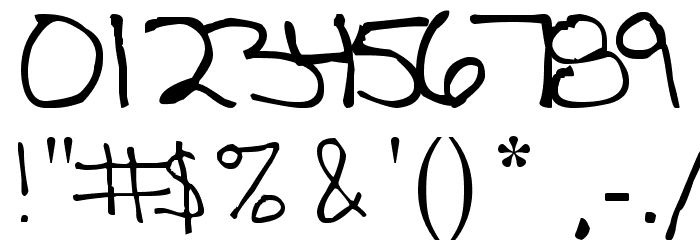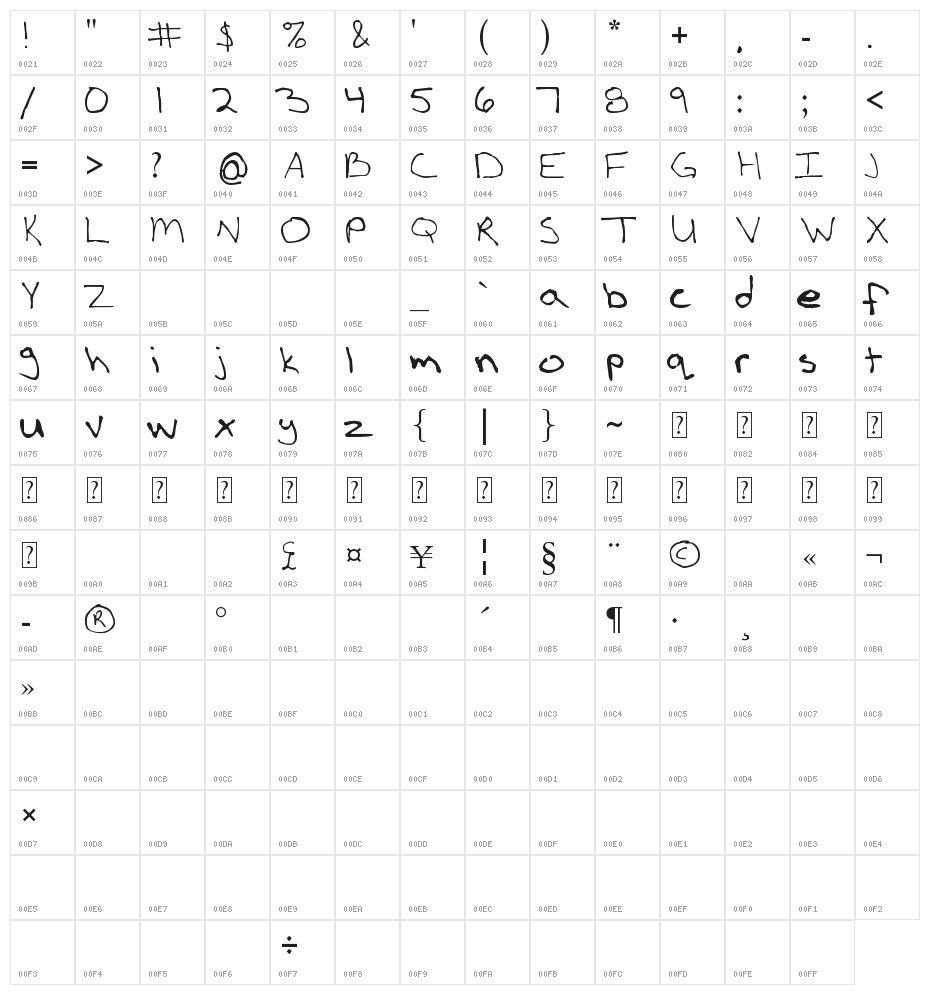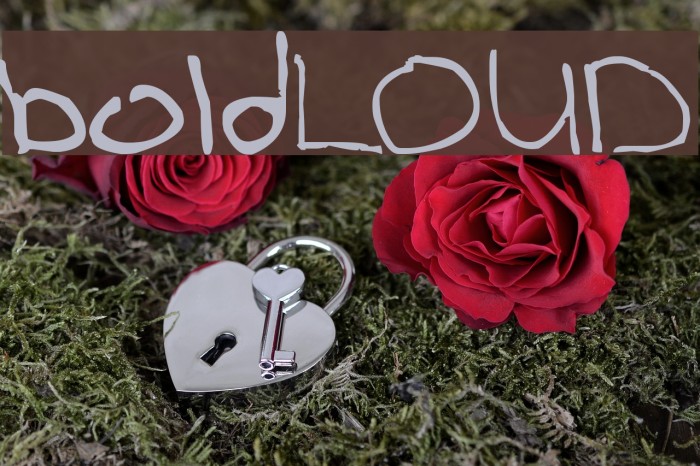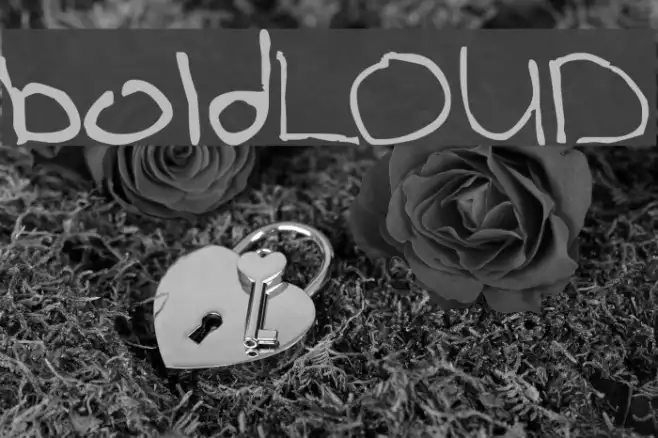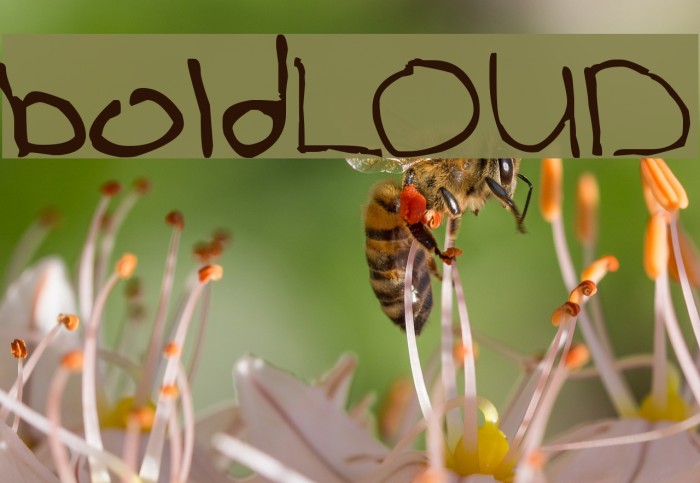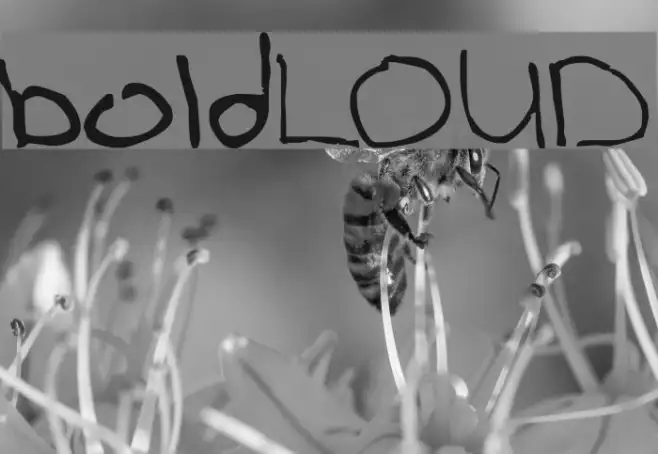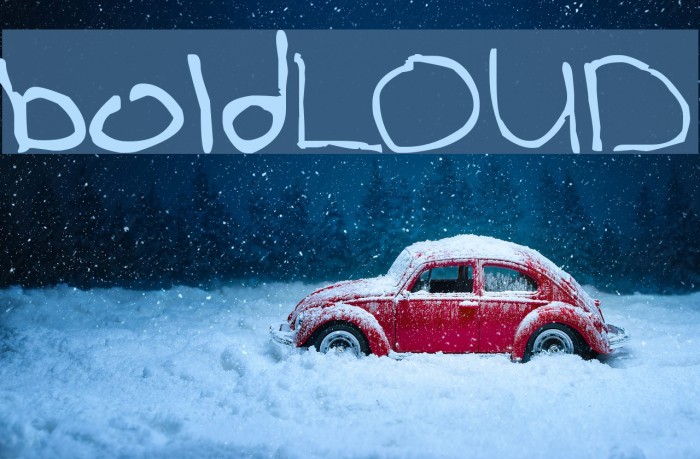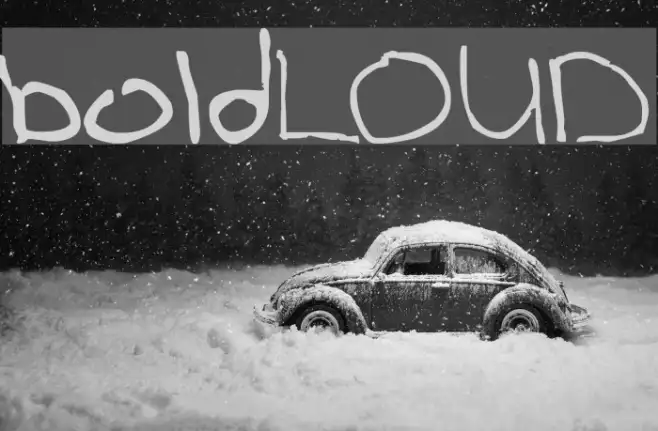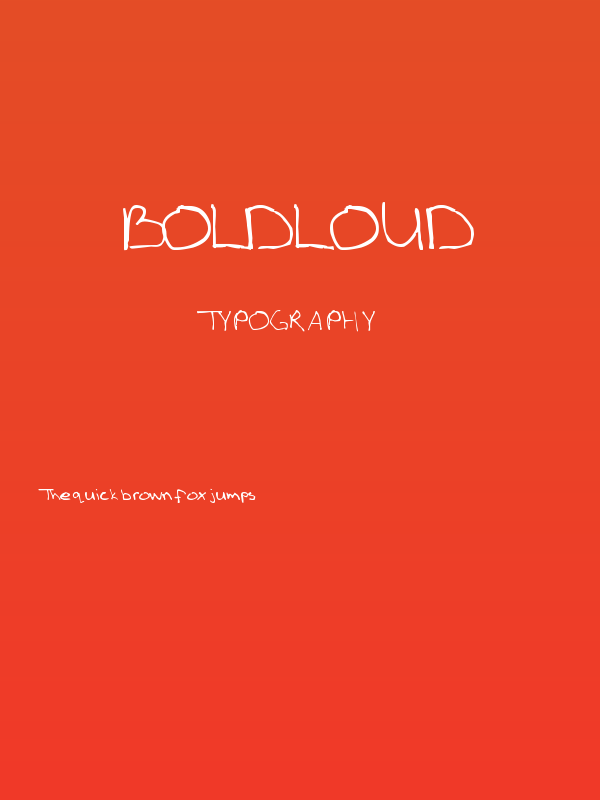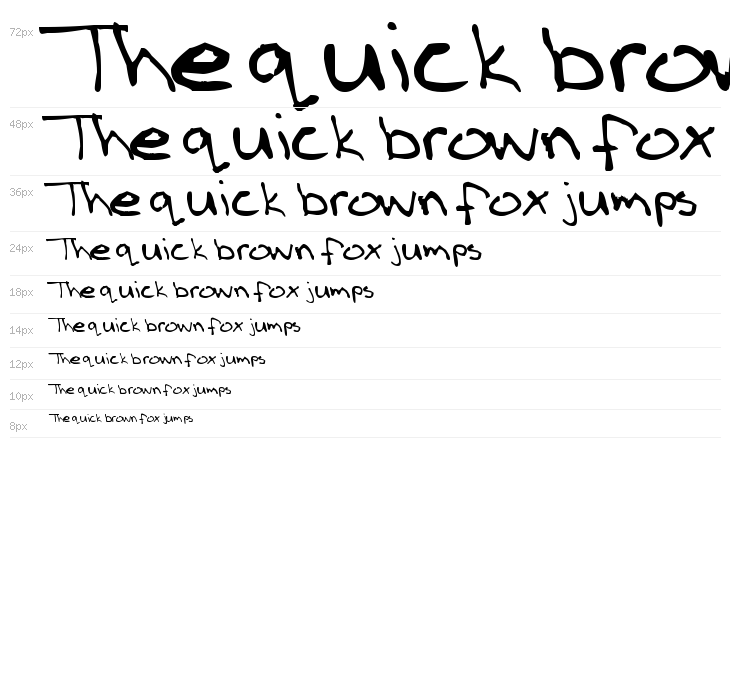
boldLOUD Font
boldLOUD Description
This font exhibits a bold, handwritten style with a casual and expressive appearance. The letters are unevenly sized, giving it a dynamic and spontaneous feel. The strokes are thick and varied, with a playful and informal character. The uppercase and lowercase letters maintain a consistent style, while the numerals and special characters are equally bold and expressive. This font's unique personality makes it stand out, perfect for projects that require a touch of individuality and creativity.